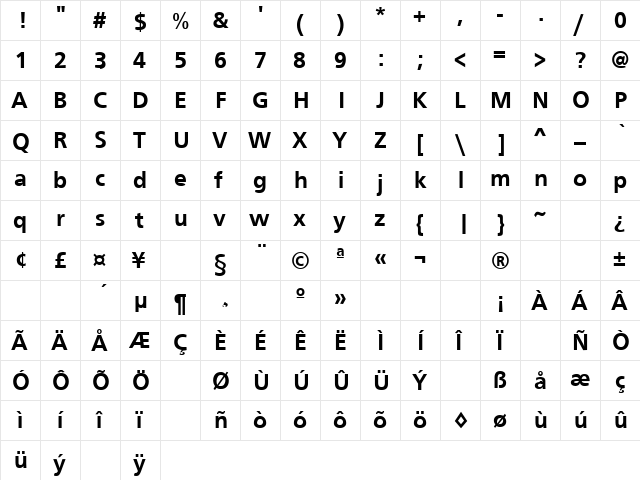
Homeplace 1 Regular
Design Context for Homeplace 1 Typeface
Homeplace 1 takes a measured approach to typography — its balanced proportions and neutral character make it a reliable workhorse for both digital and print work.